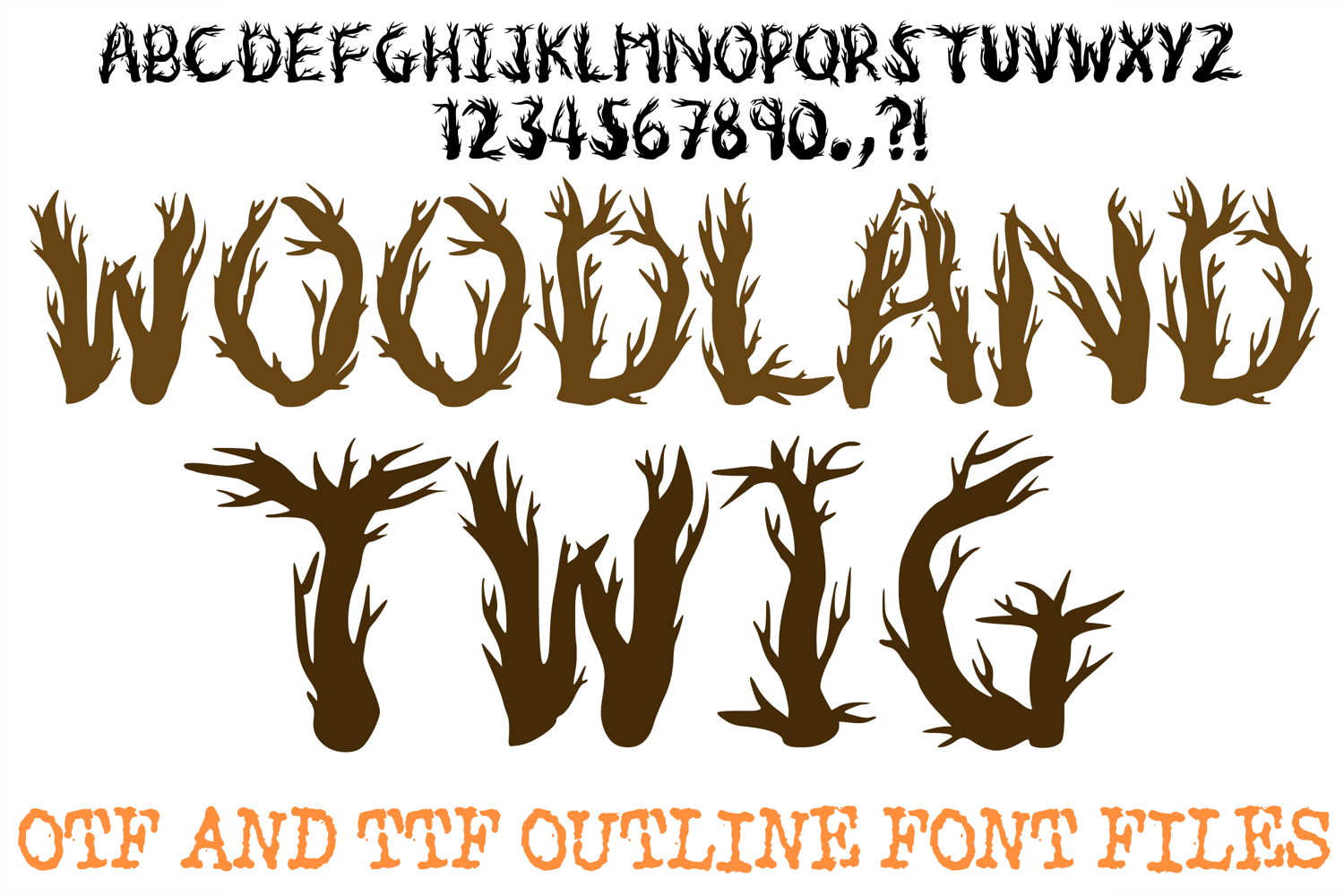
Woodland Twig ABC Font Typeface Trees Forest Alphabet OTF
Bring the raw, organic feel of nature straight to your keyboard with Woodland Twig, a fully installable display font crafted from detailed, interwoven branches and wild twigs. Featuring sharp silhouette offshoots and natural wood textures, this typeface brings an authentic forest aesthetic to every letterform.
Ideal For:
Rustic & Woodland Crafts: Cabin signage, outdoor event decor, autumn invitations, and nature trail maps.
Apparel & Merch: Camping t-shirts, hiking hoodies, tote bags, and outdoor lifestyle accessories.
Seasonal & Fantasy Design: Halloween graphics, witchy/gothic decor, fantasy headers, and book covers.
Digital & Cutting Projects: Craft machine creations, custom decals, laser cutting, and print-on-demand layouts.